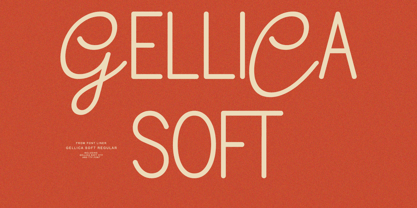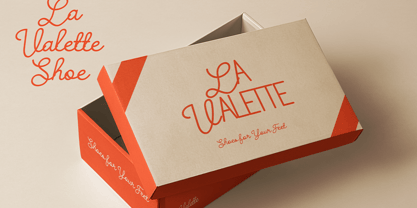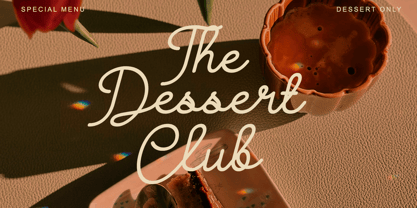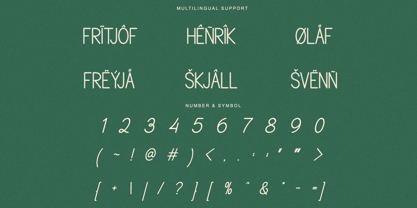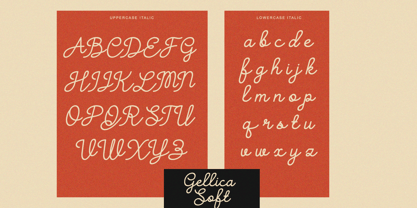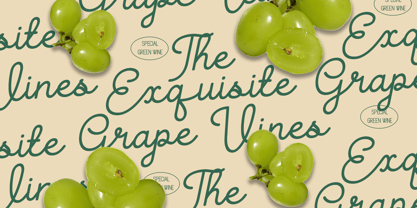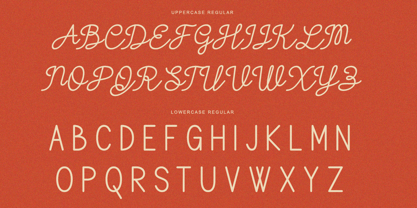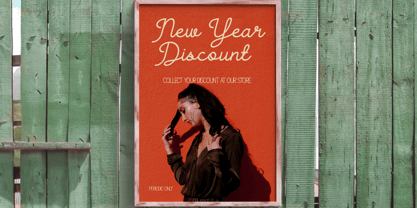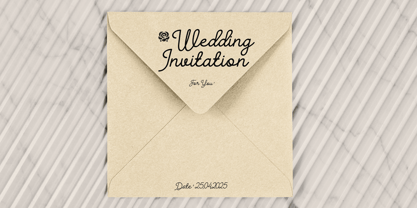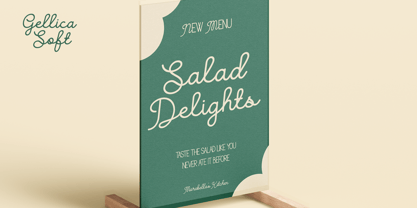
Gellica Soft
by Font Liner
The Gellica Soft Font Family was designed by Ghina Luthfiarieska and published by Font Liner. Gellica Soft contains 2 styles and family package options.
Gellica Soft is handwritten font duo, with the concept of italic version is a monoline handwritten font, and the regular version is equipped with a sans serif monoline model combined with a script character. The goal was to take the simple but effective designs from this era. This fonts are great for product logo,wedding card logo, clothing brand logo, Vintage design and much more.
Designers: Ghina Luthfiarieska
Publisher: Font Liner
Foundry: Font Liner